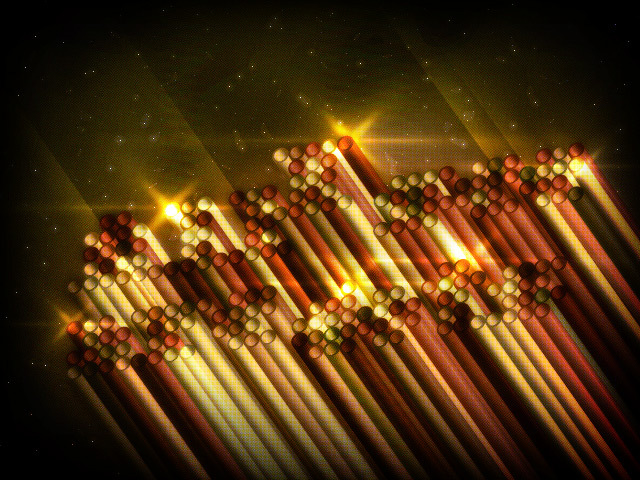
Bar Dot by João Paulo Faraco is a free dot-matrix display font built from neat rows of outlined circles. Its modular letters have the unmistakable look of an early electronic sign, with rounded contours that soften the strict grid.
Arcade and retro computing references make it a natural fit for game graphics, event posters, and technology merchandise. It is strongest in digital-themed branding, where the repeated circles can become part of an interface or circuit-inspired graphic.